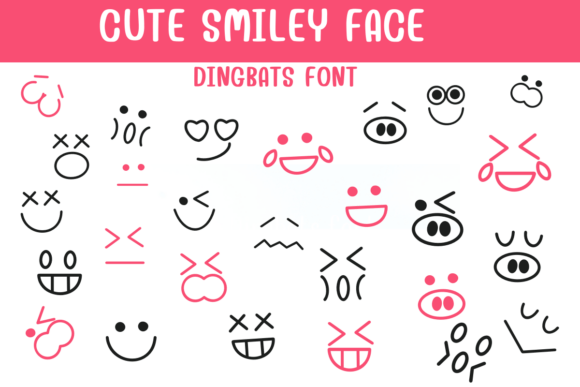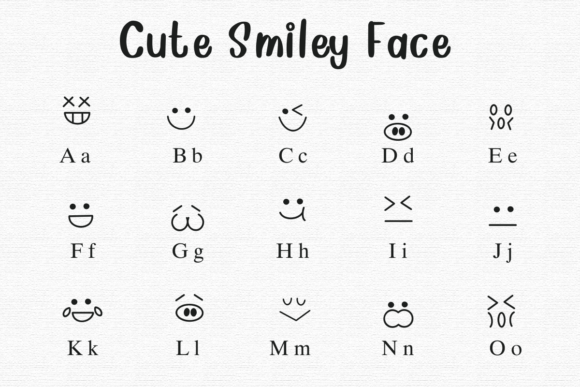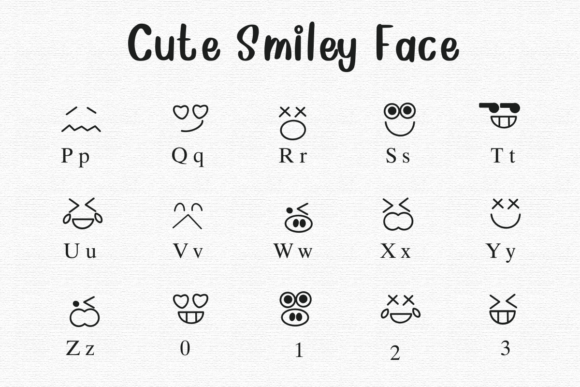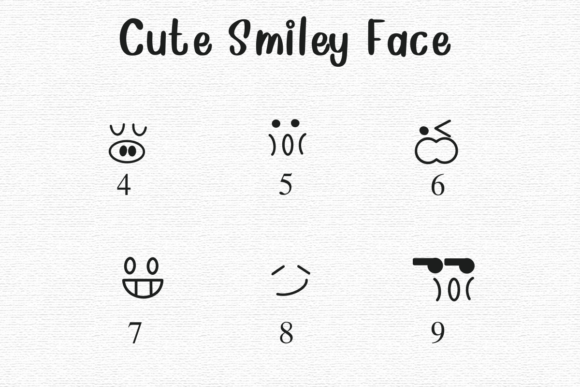
Cute Smile Face Font
About the Cute Smile Face Font
Explore the possibilities with Cute Smile Face Font, a font that offers both beauty and functionality. Cute Smile face is a dingbats font with a friendly theme. This font can enhance your creative projects such as wedding invitations, DIY, crafts, decorations, logos, and many other creative ideas.
Cute Smile Face’s friendly, informal style makes it ideal for projects needing a playful touch, such as children’s books, greeting cards, or social media graphics. It excels in applications requiring small-scale use, like logos, icons, or decorative elements within larger layouts. However, it’s unsuitable for body text or lengthy passages due to its limited character set and whimsical nature.
This font pairs well with clean sans-serif fonts like Open Sans for a balanced contrast, or with a rounded, geometric sans-serif for a cohesive, playful feel. For a more sophisticated look, consider pairing it with a delicate script font for invitations or branding materials where a touch of elegance is desired.
Its overall personality is undeniably cheerful and approachable, making it a strong choice for brands targeting a young or family-oriented audience. Avoid using it in contexts requiring professionalism or seriousness.
Cute Smile Face Font Usage Examples
Cute Smile Face Font Example